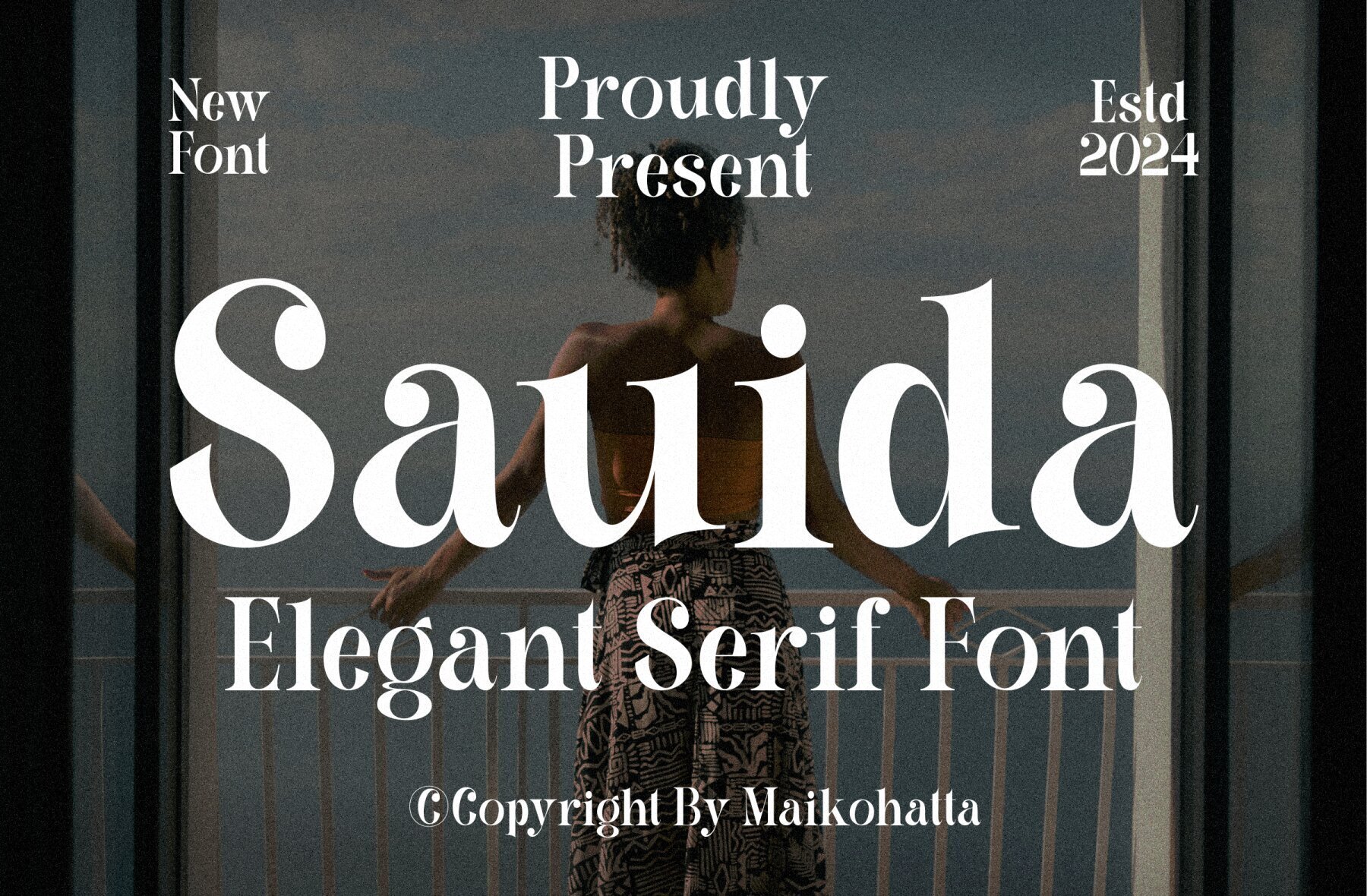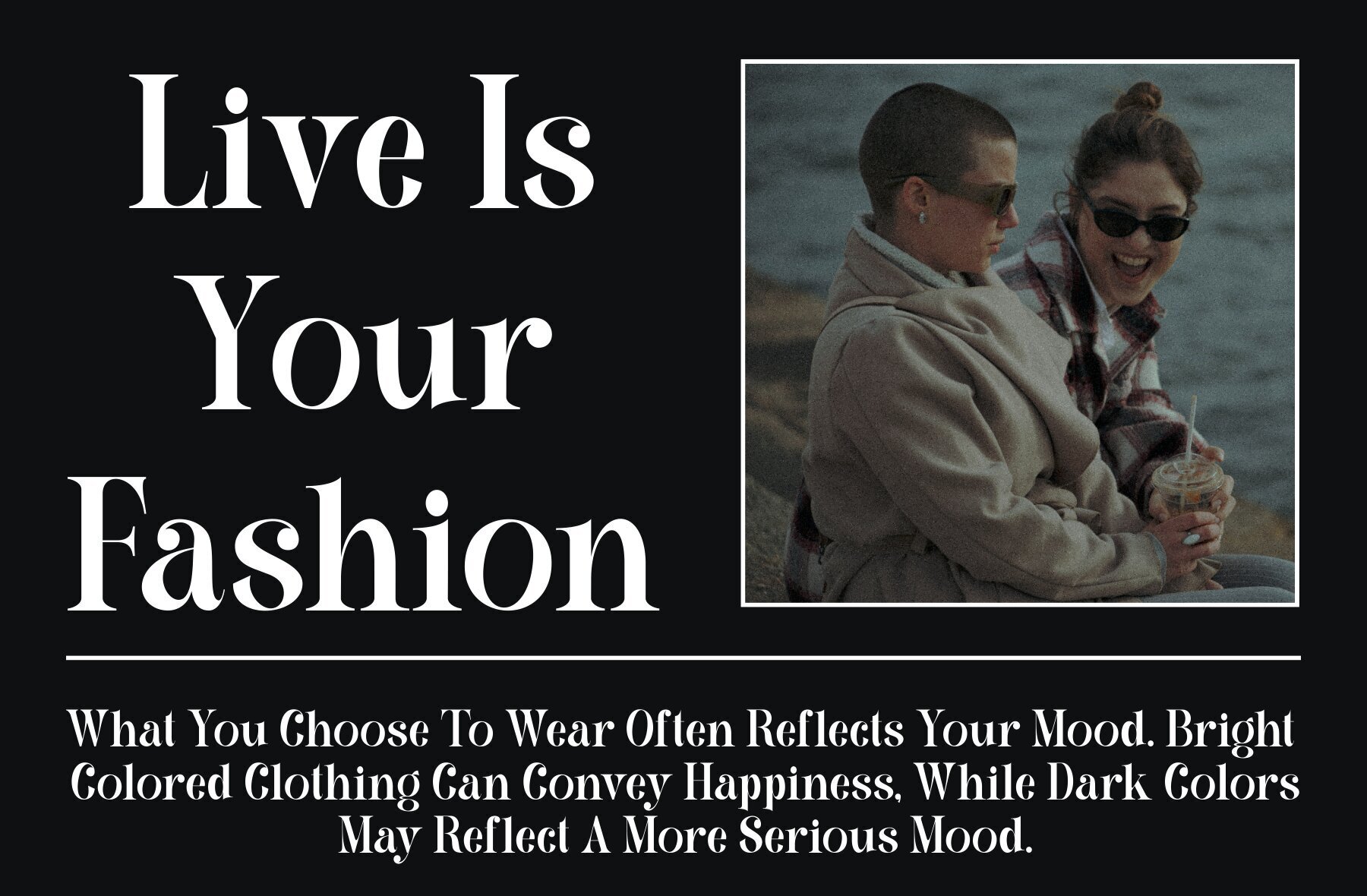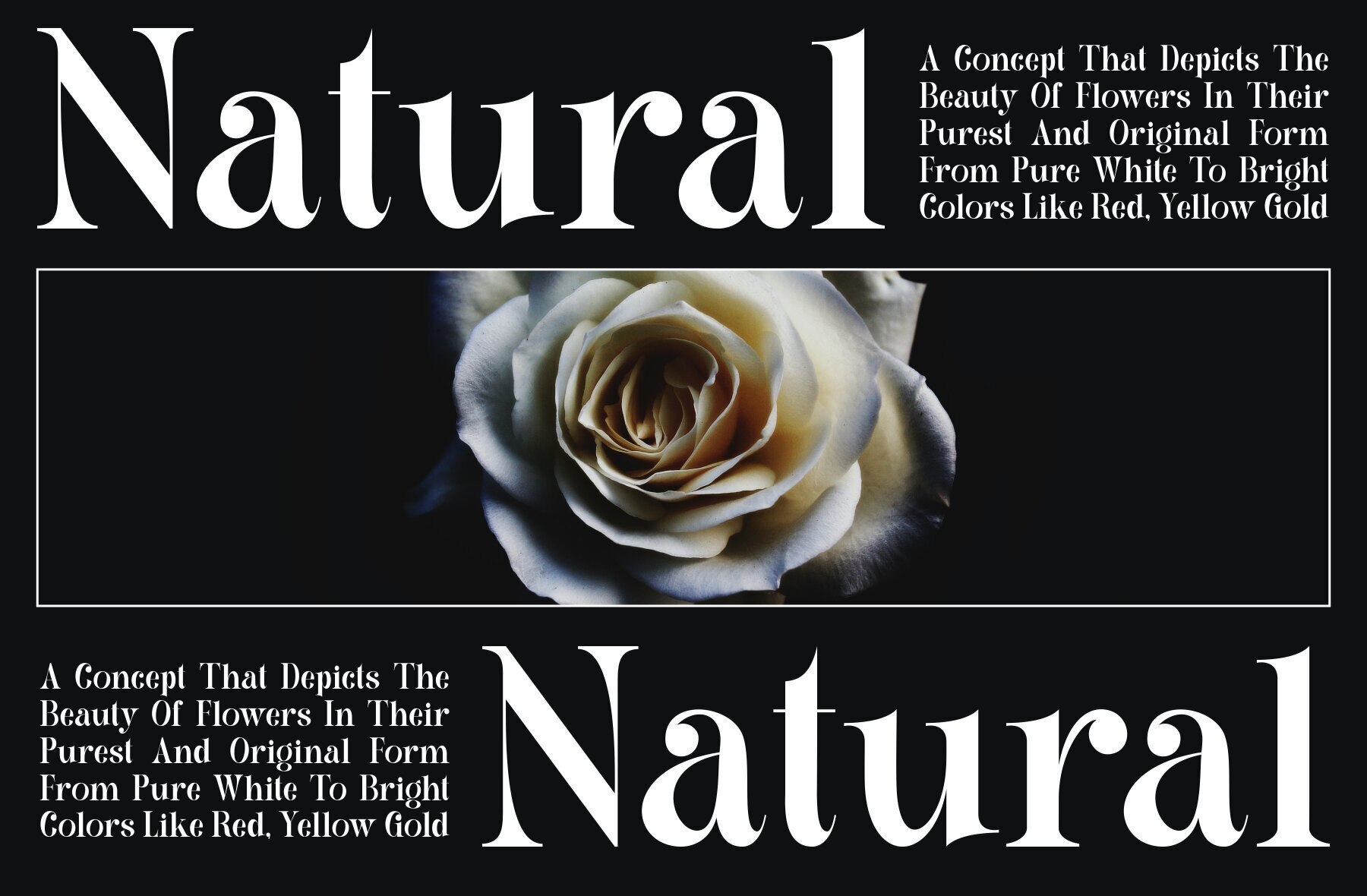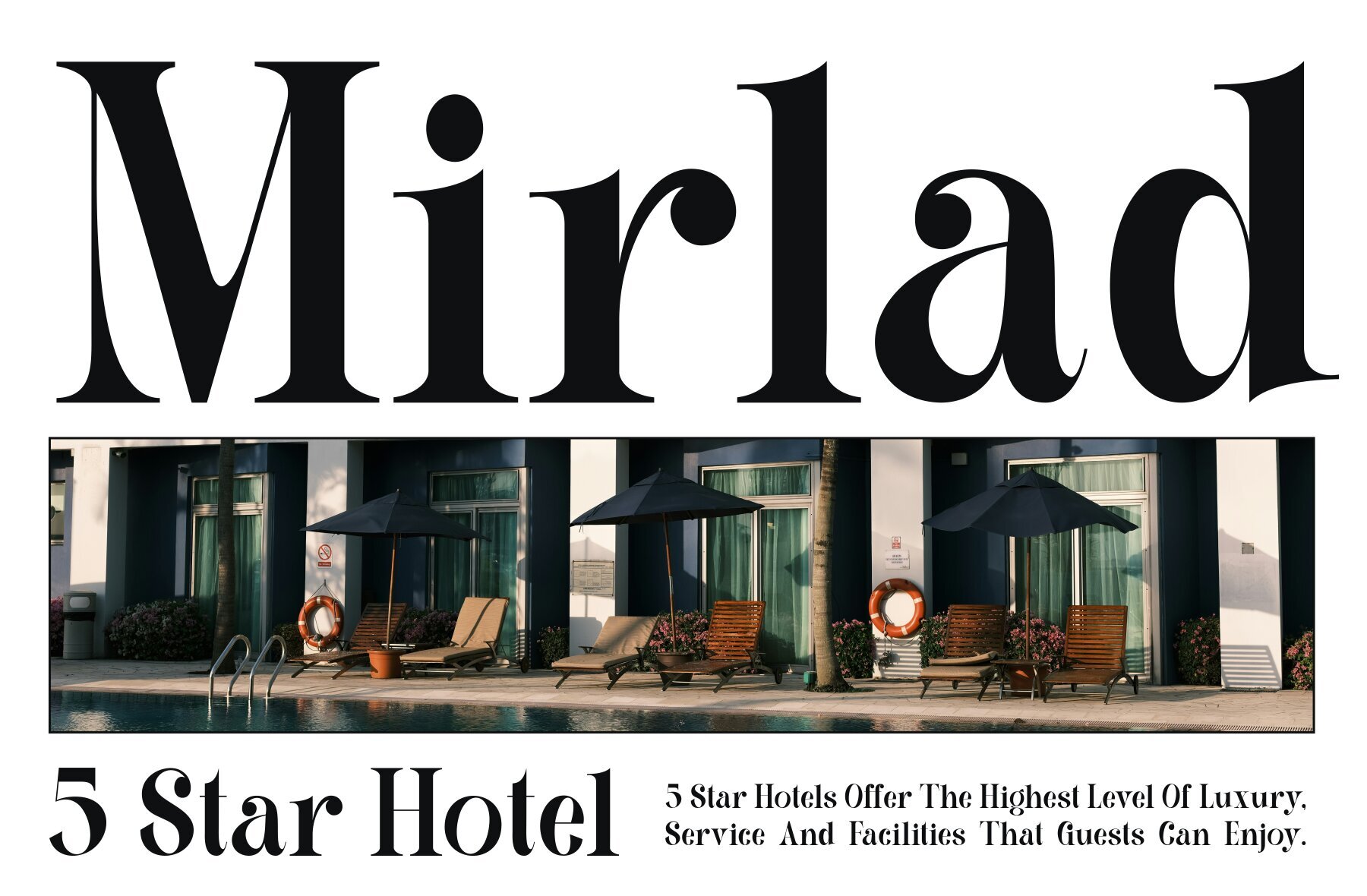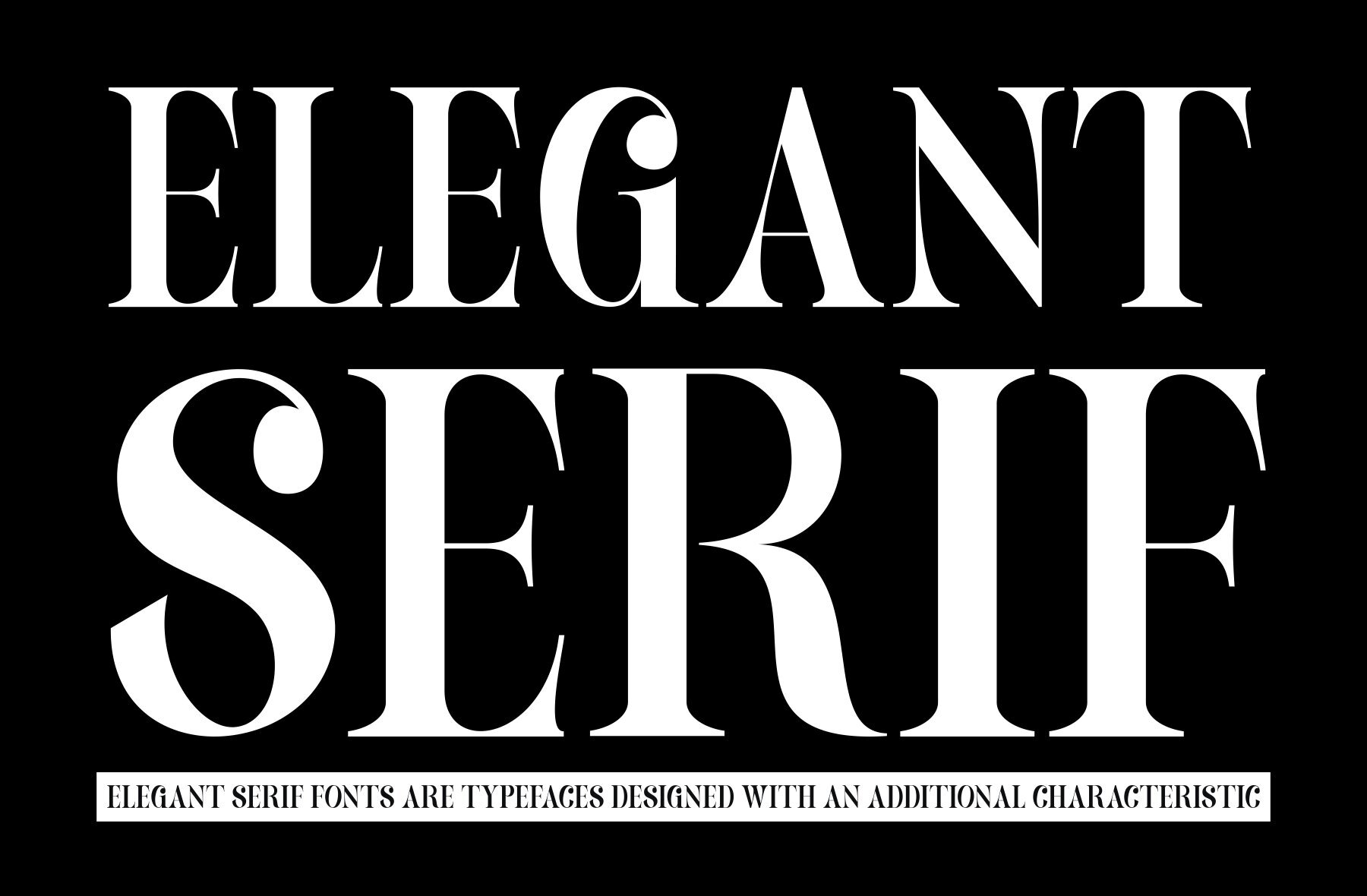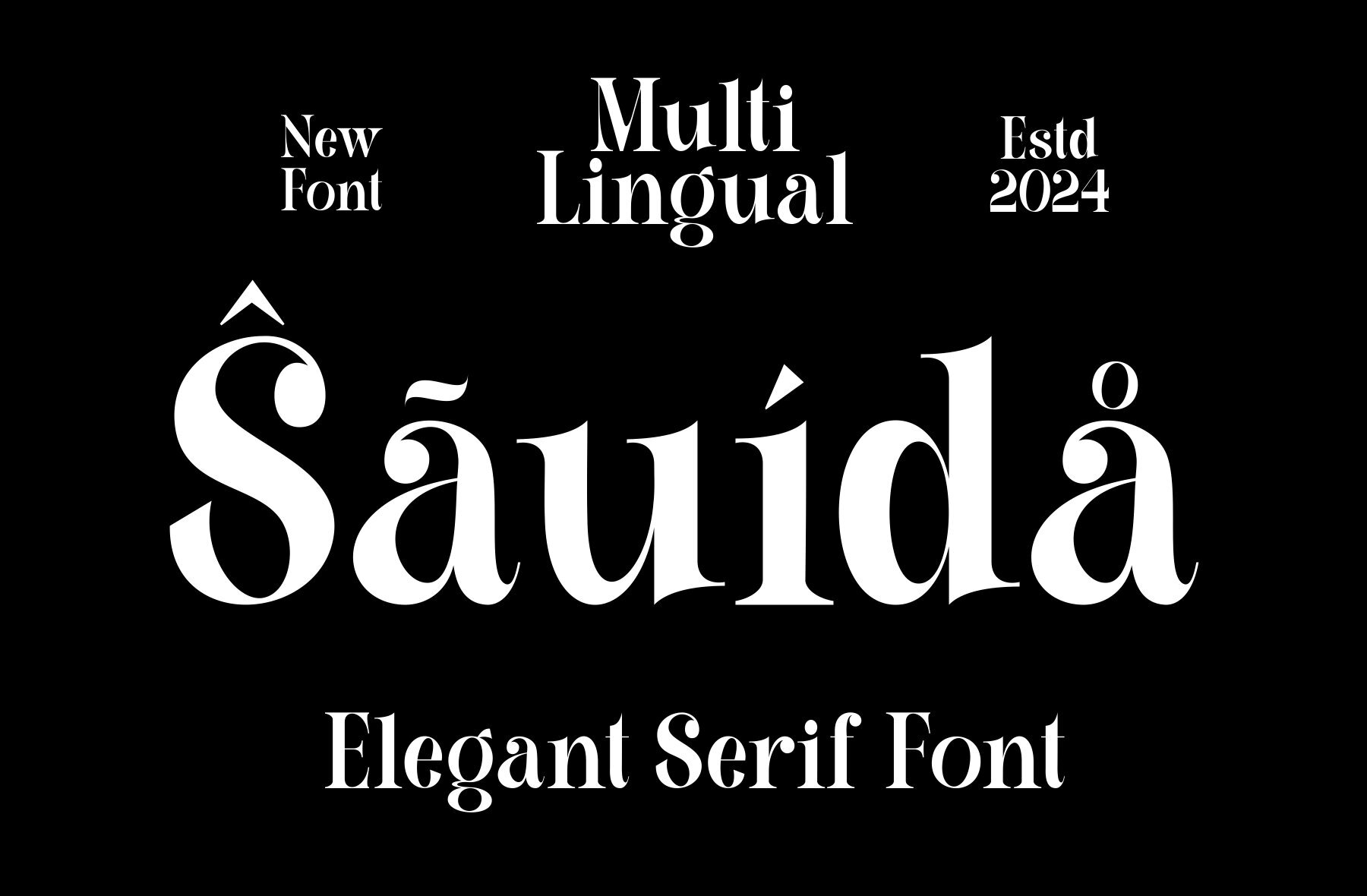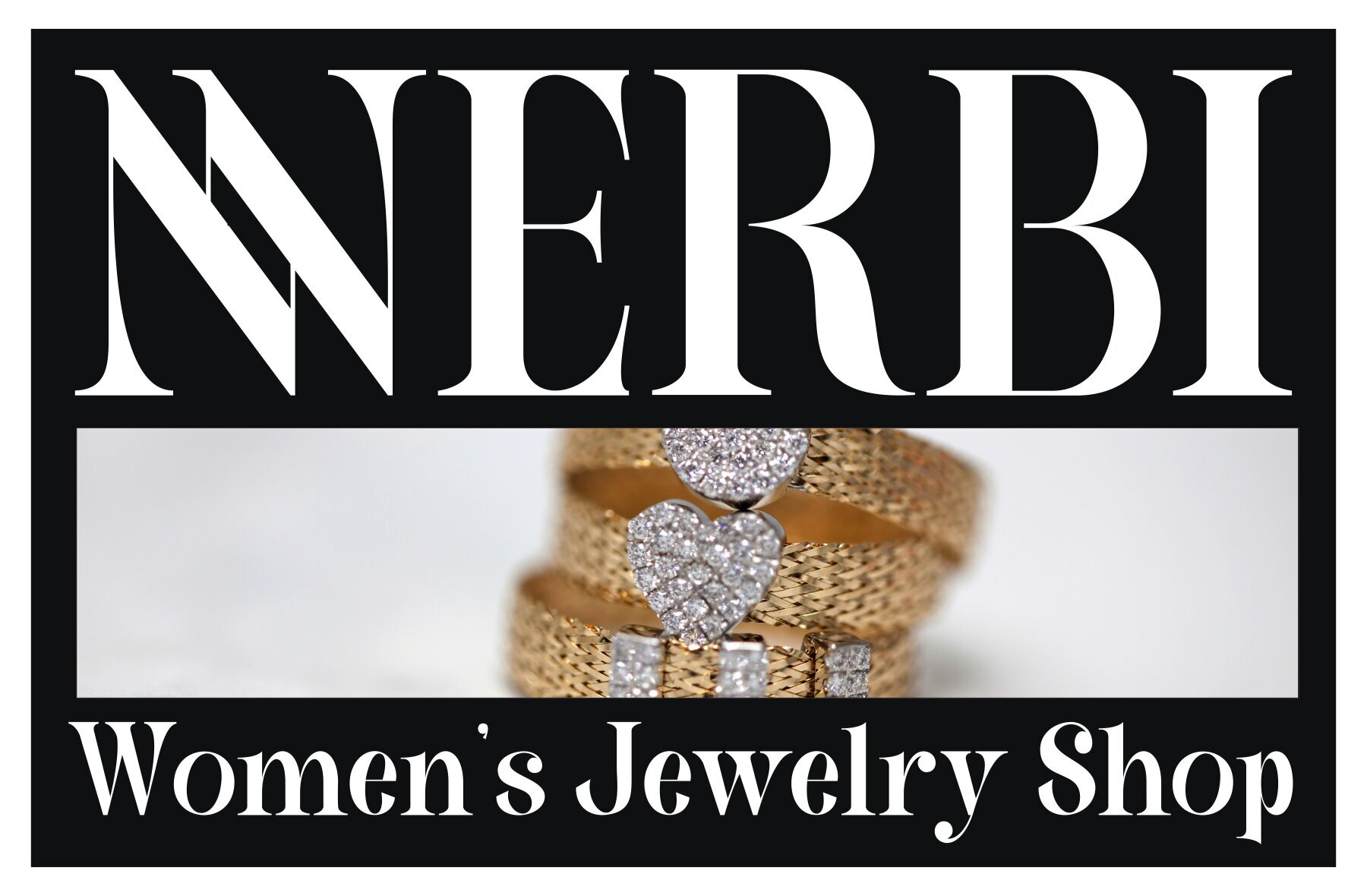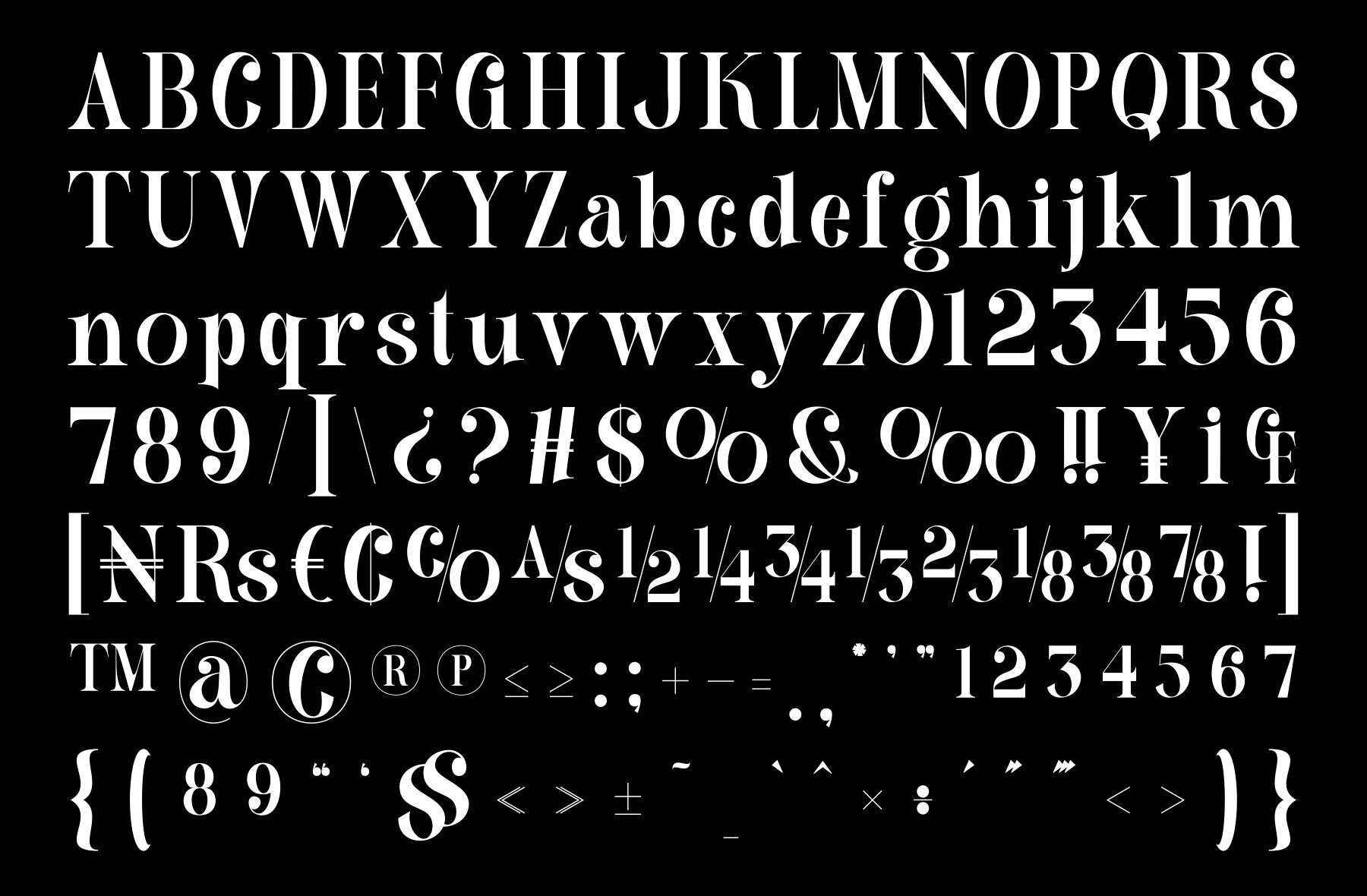
Sauida Font
Sauida Regular
Sauida is an elegant serif font designed to impart a sense of luxury and sophistication. This typeface features balanced thin and thick lines, gentle curves, and clean serifs that together create a refined aesthetic. Each character's sharp corners and meticulous details contribute to a highly polished look, making it a fitting choice for upscale projects.
Ideal for both digital and print designs, Sauida brings together beauty and clarity in its form. Its unique design elements ensure readability while adding a touch of elegance, making it perfect for branding, editorial designs, invitations, and more. The harmonious blend of firmness and grace makes this font a versatile tool for any designer seeking to elevate their creative work.